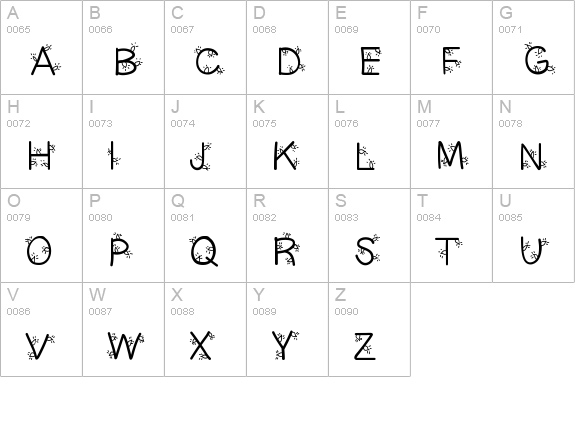
Introducing ChristmasLigtness, a delightful and whimsical font that captures the essence of the holiday season. This enchanting typeface is designed to bring a touch of festive magic to your designs and evoke the warmth and joy of Christmas. With its charming and playful letterforms, ChristmasLigtness is perfect for adding a sprinkle of cheer to your holiday cards, invitations, banners, and more. Its graceful curves and unique ornaments create a sense of elegance and sophistication, making it ideal for both personal and professional projects. What sets ChristmasLigtness apart is not only its captivating design, but also the fact that it is freely available to download at FontsMarket.com. Yes, you read that right – this incredible font can be yours without any cost. Spread the holiday spirit without breaking the bank, as you bring your creative visions to life with this amazing typeface. Whether you're designing a festive poster, creating stunning social media graphics, or crafting a beautiful holiday-themed logo, ChristmasLigtness will be your go-to font for all things merry and bright. Its versatility allows it to shine in both headline and body text, ensuring that your message is conveyed with the utmost clarity and style. So, why wait? Embrace the magic of Christmas with ChristmasLigtness font and let its whimsical charm transform your designs into a winter wonderland. Download it for free at FontsMarket.com and start spreading joy and cheer with every stroke of your keyboard.